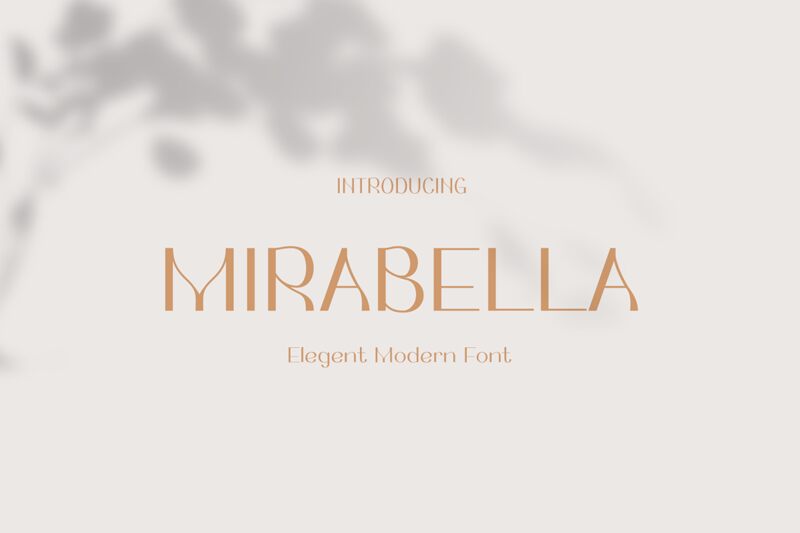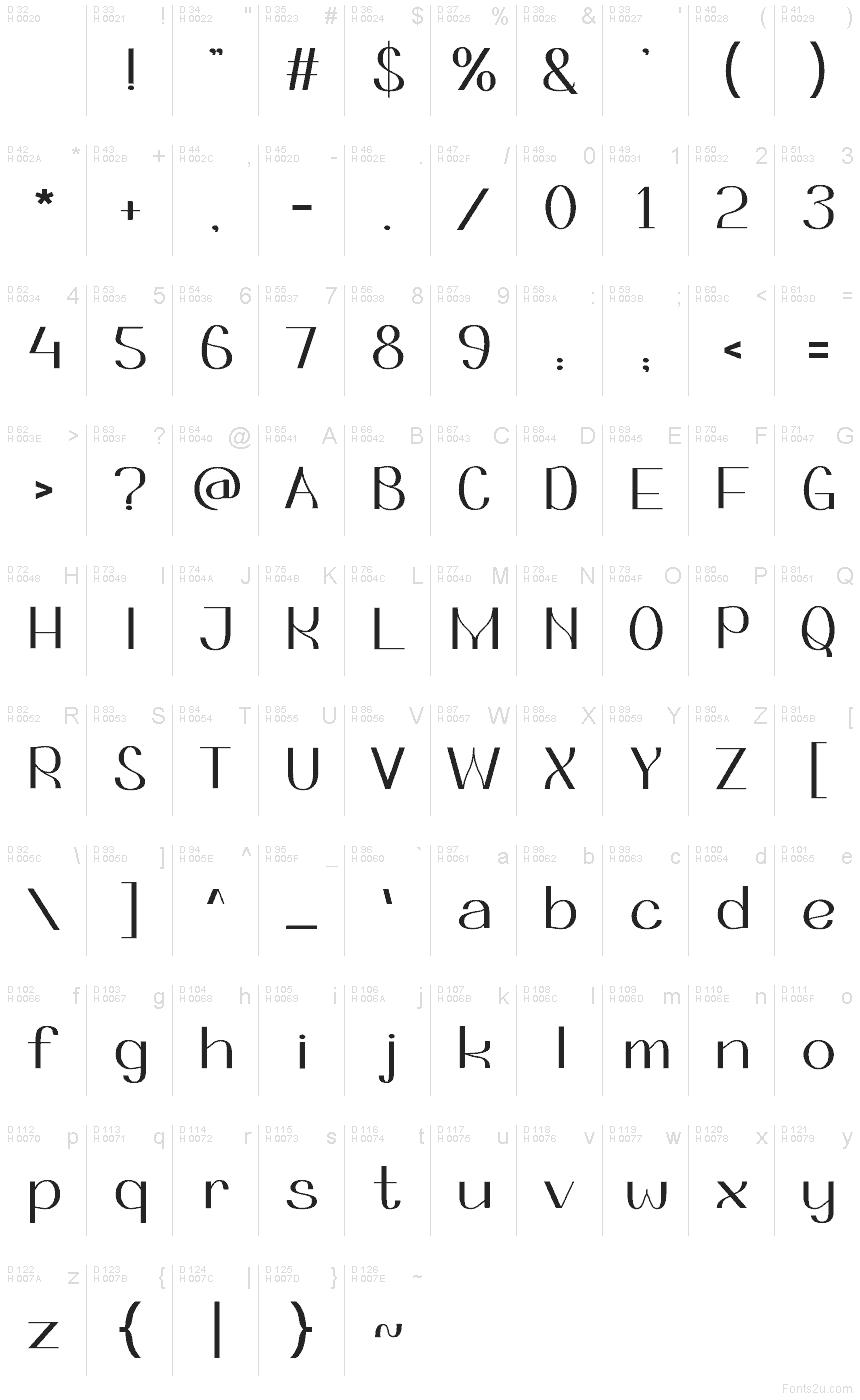
MIRABELLA
Mirabella font by Pinisiart is a free high-contrast retro display font. It stands out with razor-thin hairlines melting into inky, wedge-like strokes, echoing Art Deco glamour without feeling fussy. Tall caps, sculpted cuts, and sly internal curves create a crisp, architectural rhythm that reads luxurious at a glance and unforgettable up close.
Using Mirabella, headlines snap to attention on boutique branding, cocktail menus, event posters, packaging, magazine covers, and upscale invitations. The tight geometry holds together beautifully at large sizes, while the tapering strokes add sparkle in print or on screen. Pair this free font with a soft, neutral sans for body copy, and give it generous tracking to let those sleek forms breathe.